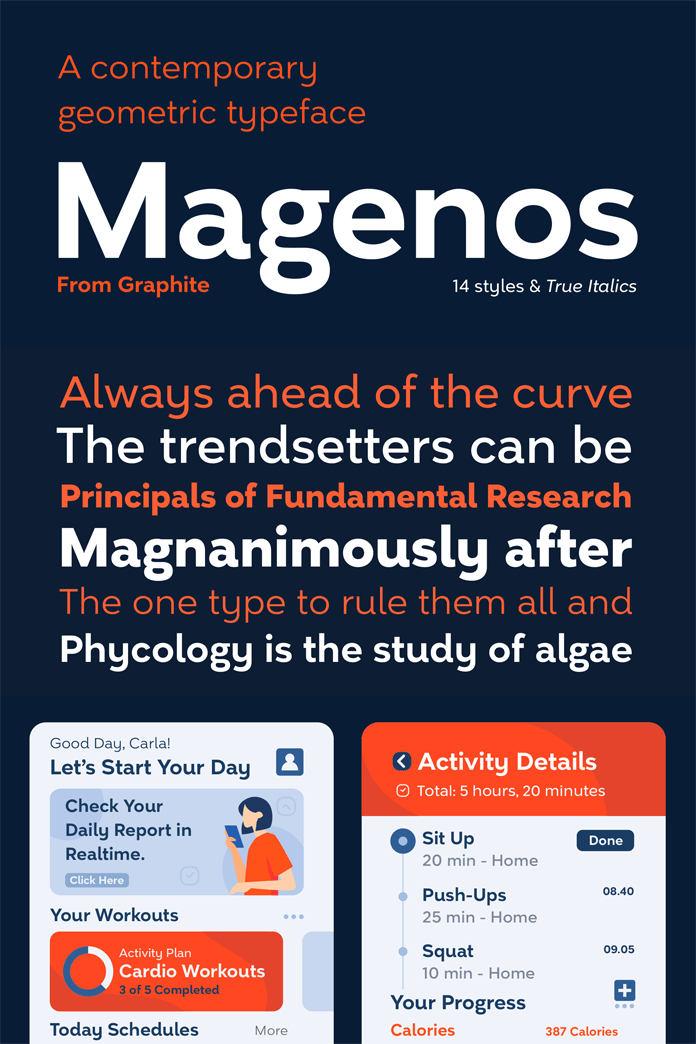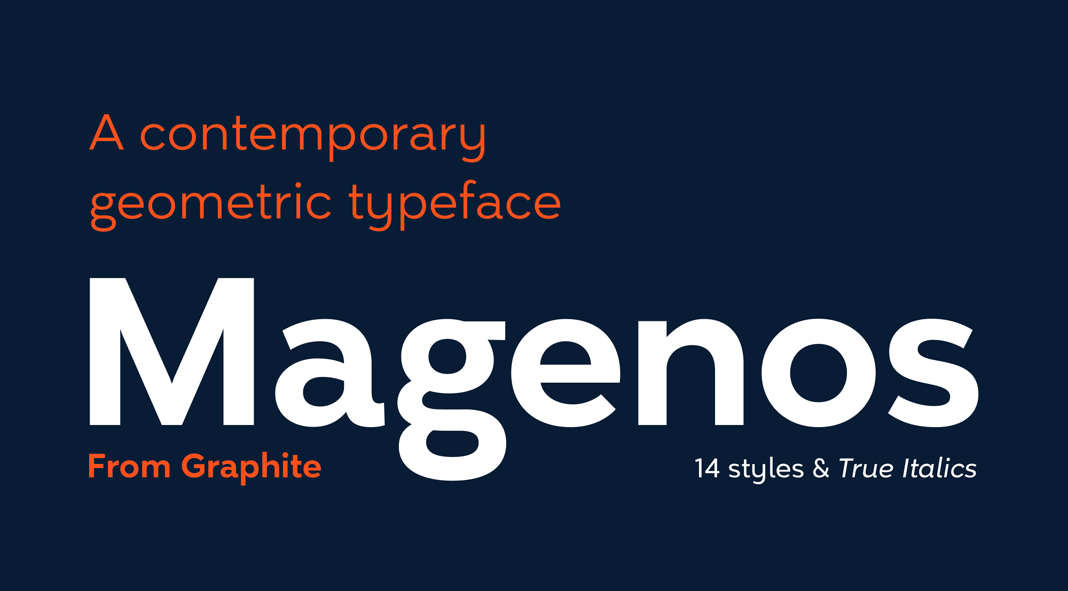
Published by Graphite, Magenos is a sans-serif font family designed by Deepak Dogra.
The Magenos font family is based on a contemporary geometric sans-serif typeface. The family is mostly characterized by a unique design along with simplicity and extensive functionality. Its open apertures, geometric architecture, and low contrast strokes result in a modernistic, neutral, yet friendly appearance. You can use it for plenty of typographic work including headlines and long text sections. The Magenos font family is equally suitable for both print and screen usage. Equipped with 14 fonts in total including true italics and plenty of OpenType features, this typeface is a true workhorse.
The OpenType features include stylistic alternates, standard ligatures, old-style and lining (proportional and tabular) numerals, slashed zero, and a variety of symbols. Just click on the following link to learn more about the Magenos font family.